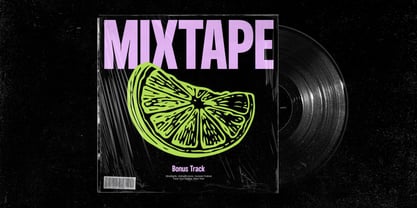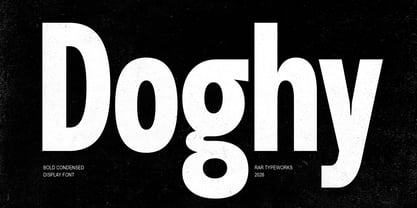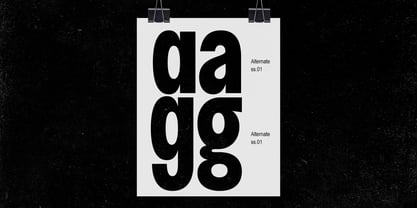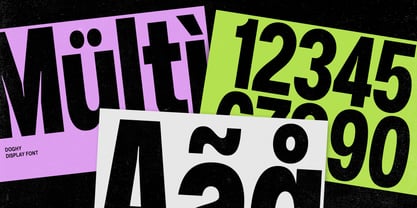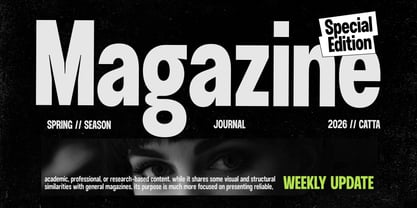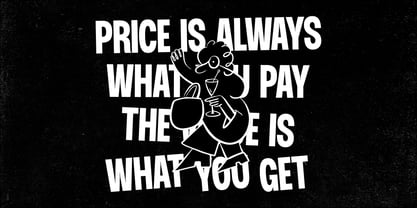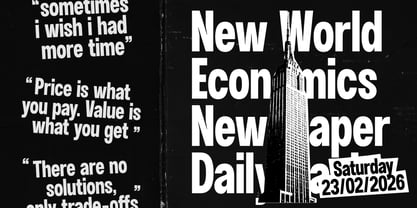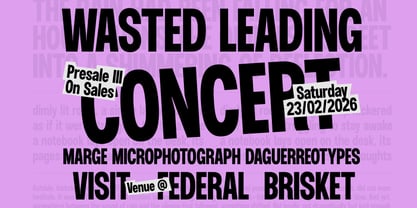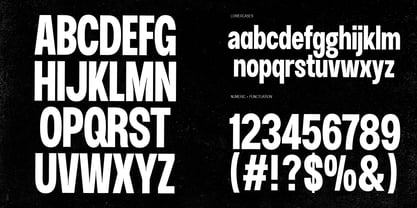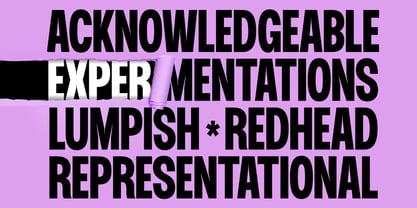
Doghy
by Rar Typeworks
The Doghy Font Family was designed by Restu Angga Romansah and published by Rar Typeworks. Doghy contains 1 styles. More about this family
Doghy - Bold Condensed Display Font
Doghy is a powerful bold condensed display font designed to make a strong visual impact. With its tall proportions, tight spacing, and solid geometric structure, Doghy delivers a confident and modern look that stands out in any layout.
Built for high visibility, Doghy performs exceptionally well in headlines, posters, branding, packaging, and digital content. Its clean yet assertive letterforms create a perfect balance between readability and bold personality, making it suitable for both contemporary and industrial-style designs.
Whether you're crafting a striking brand identity or eye-catching promotional materials, Doghy brings strength, clarity, and character to your typography.
Features:
Bold condensed style
Strong and modern character
Highly legible for display use
Perfect for headlines, logos, posters, and branding
Doghy is more than just a font it's a statement.
Designers: Restu Angga Romansah
Foundry: Rar Typeworks